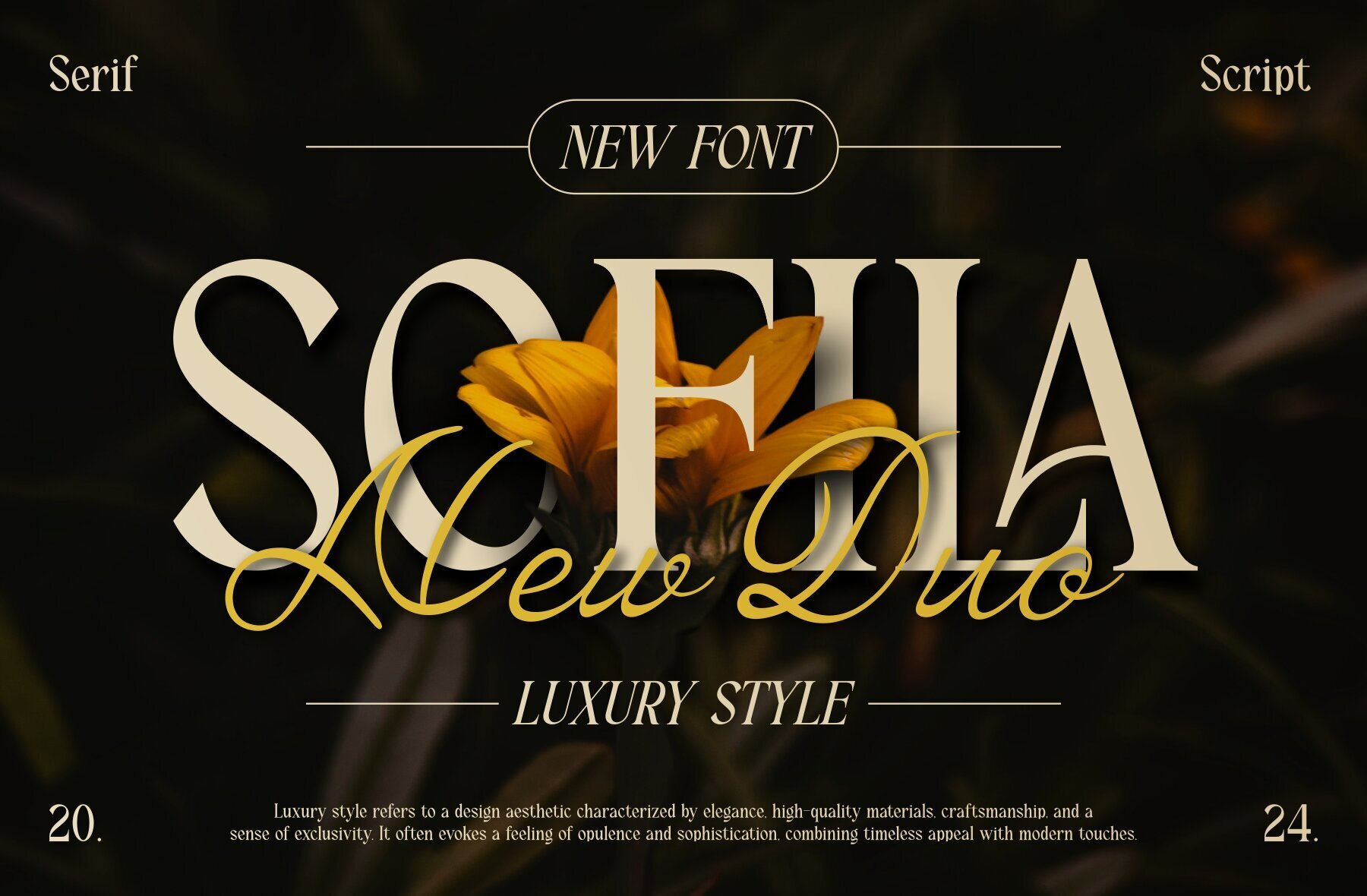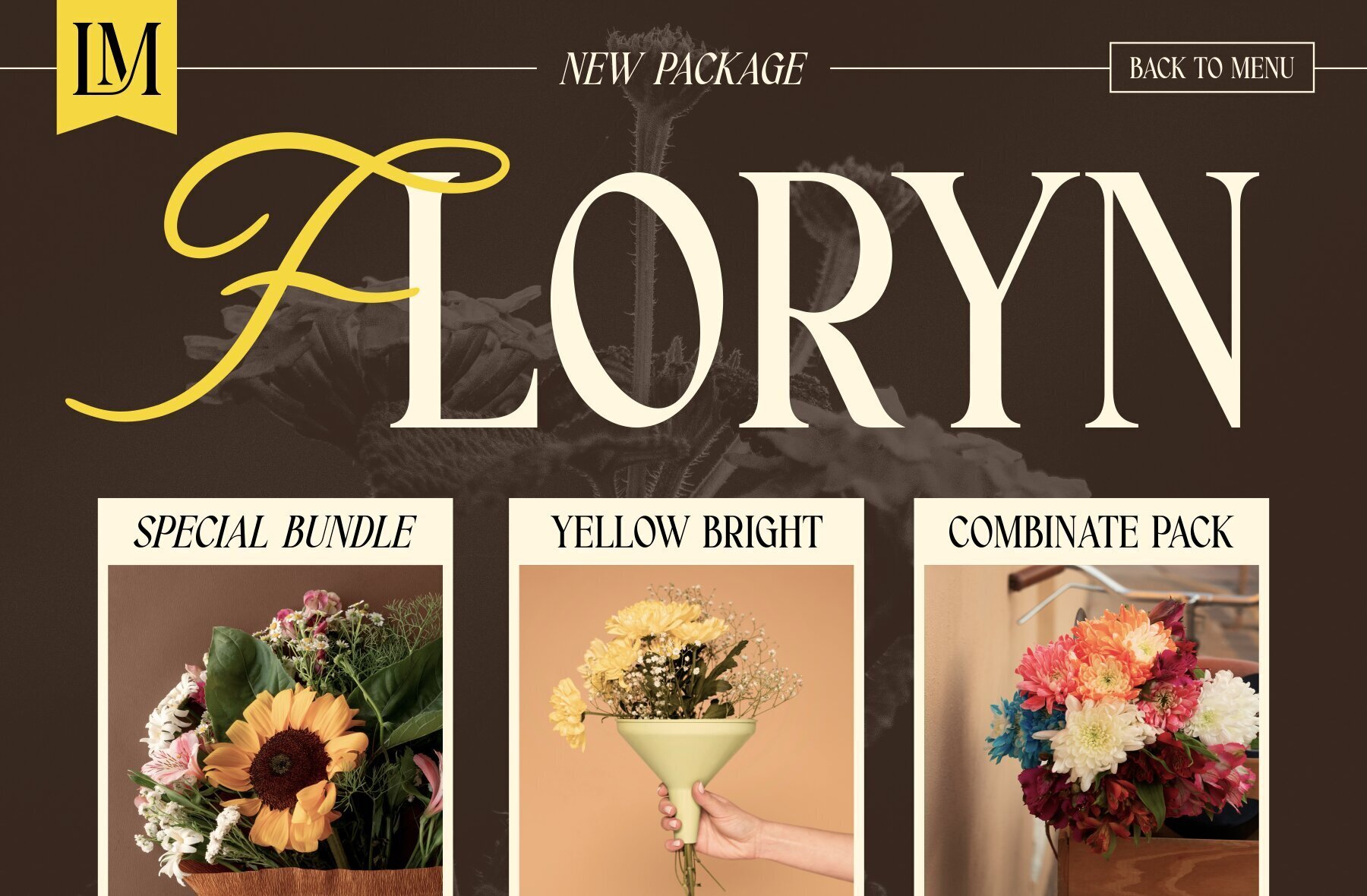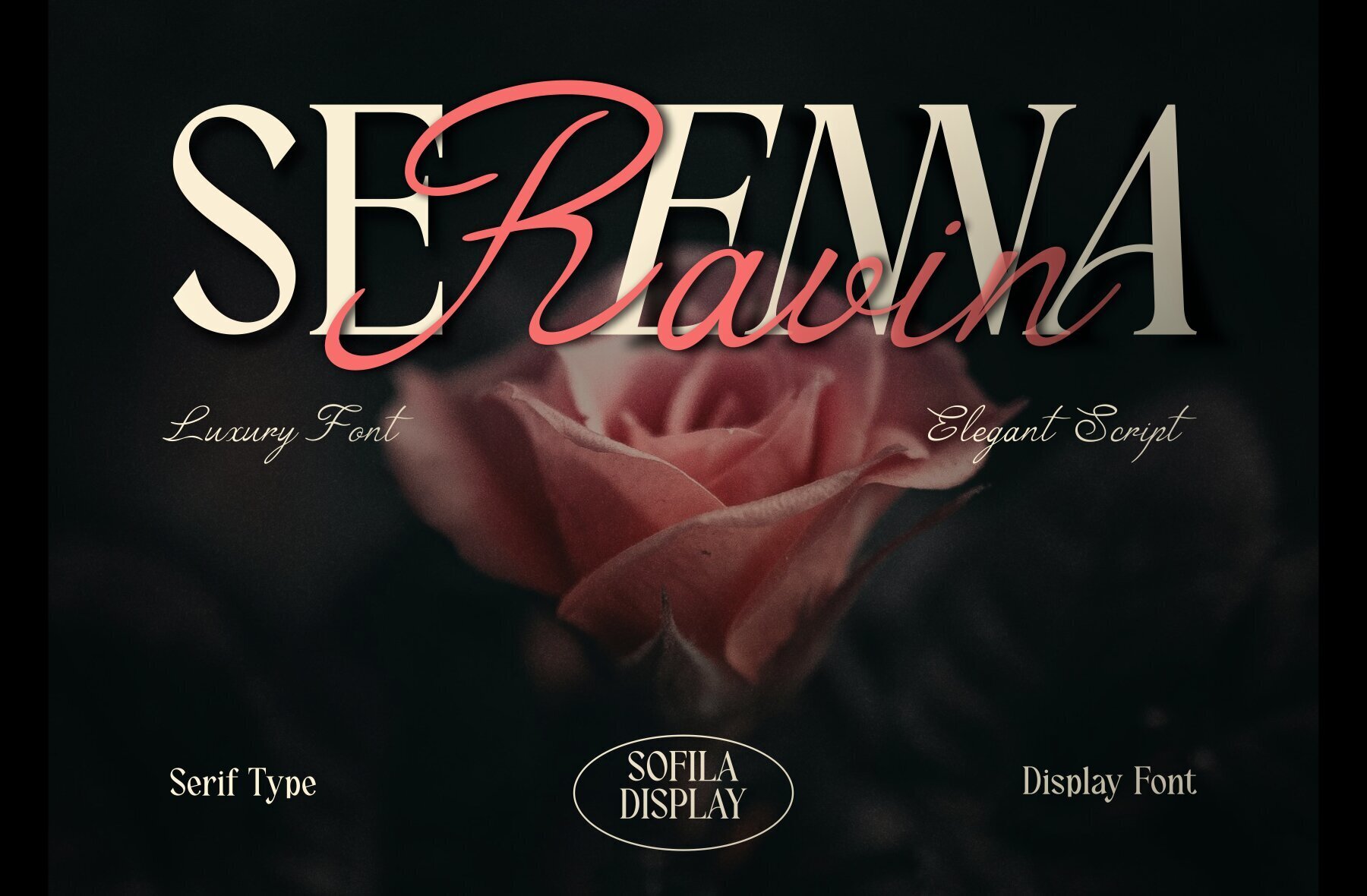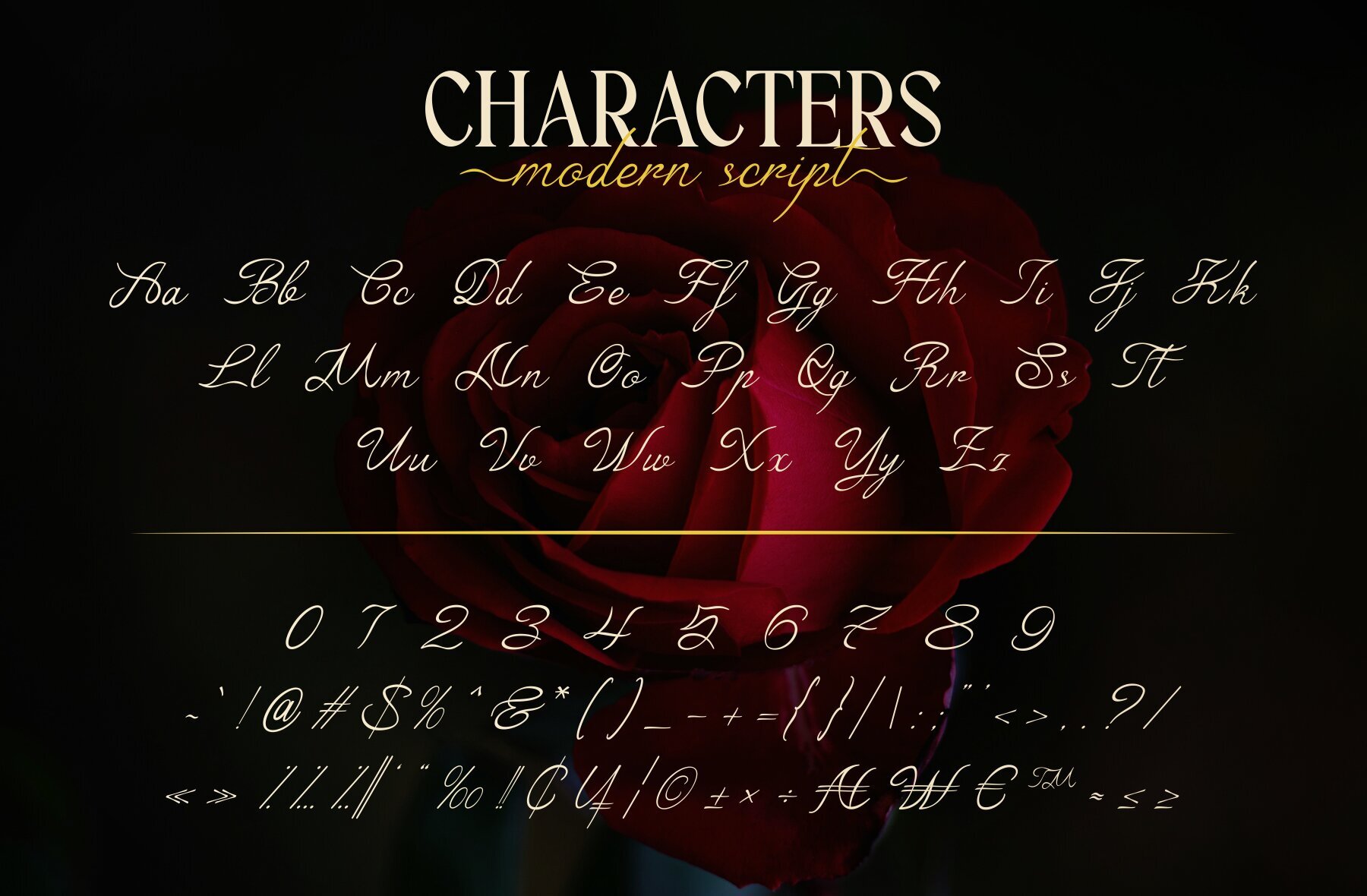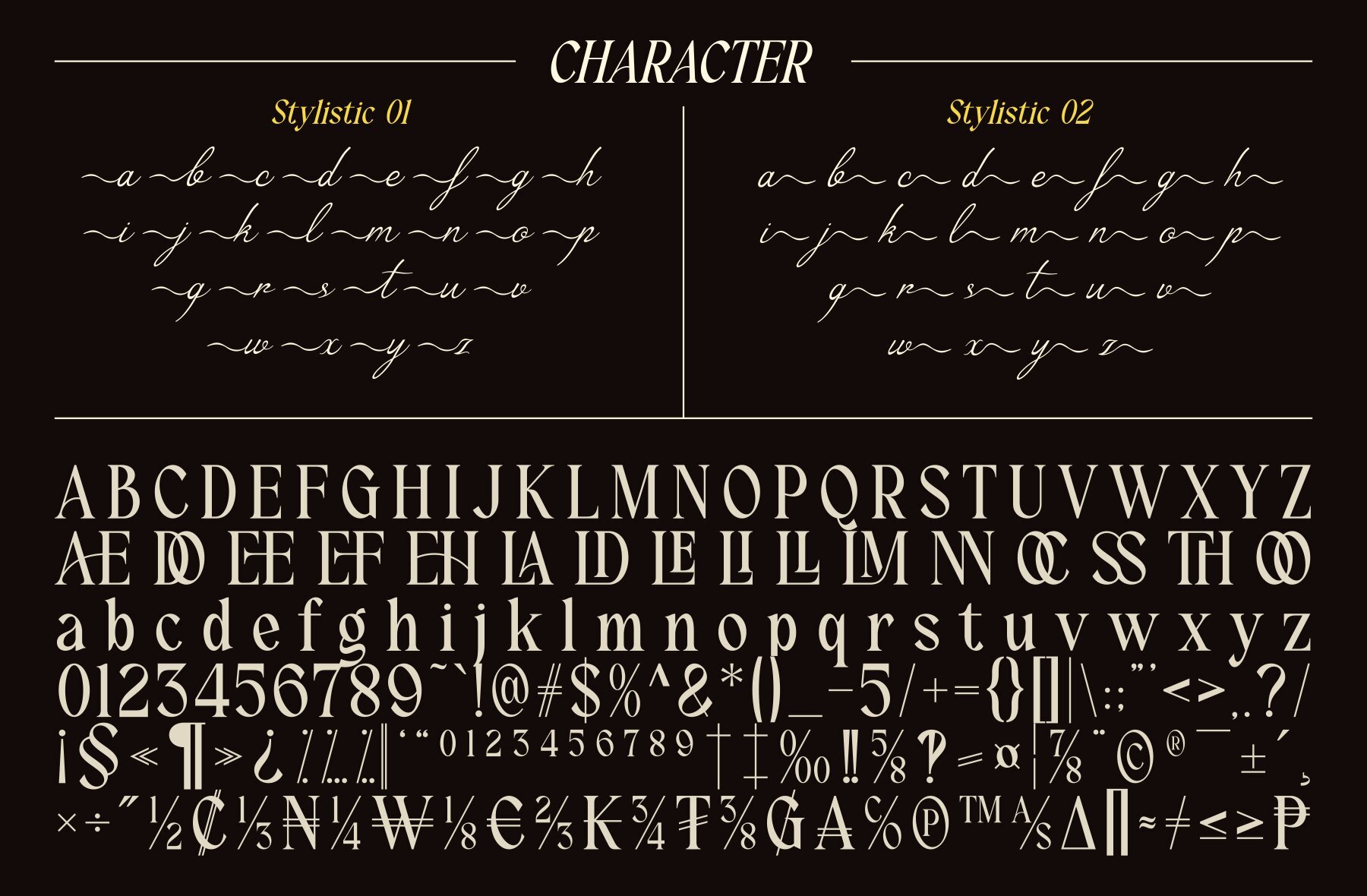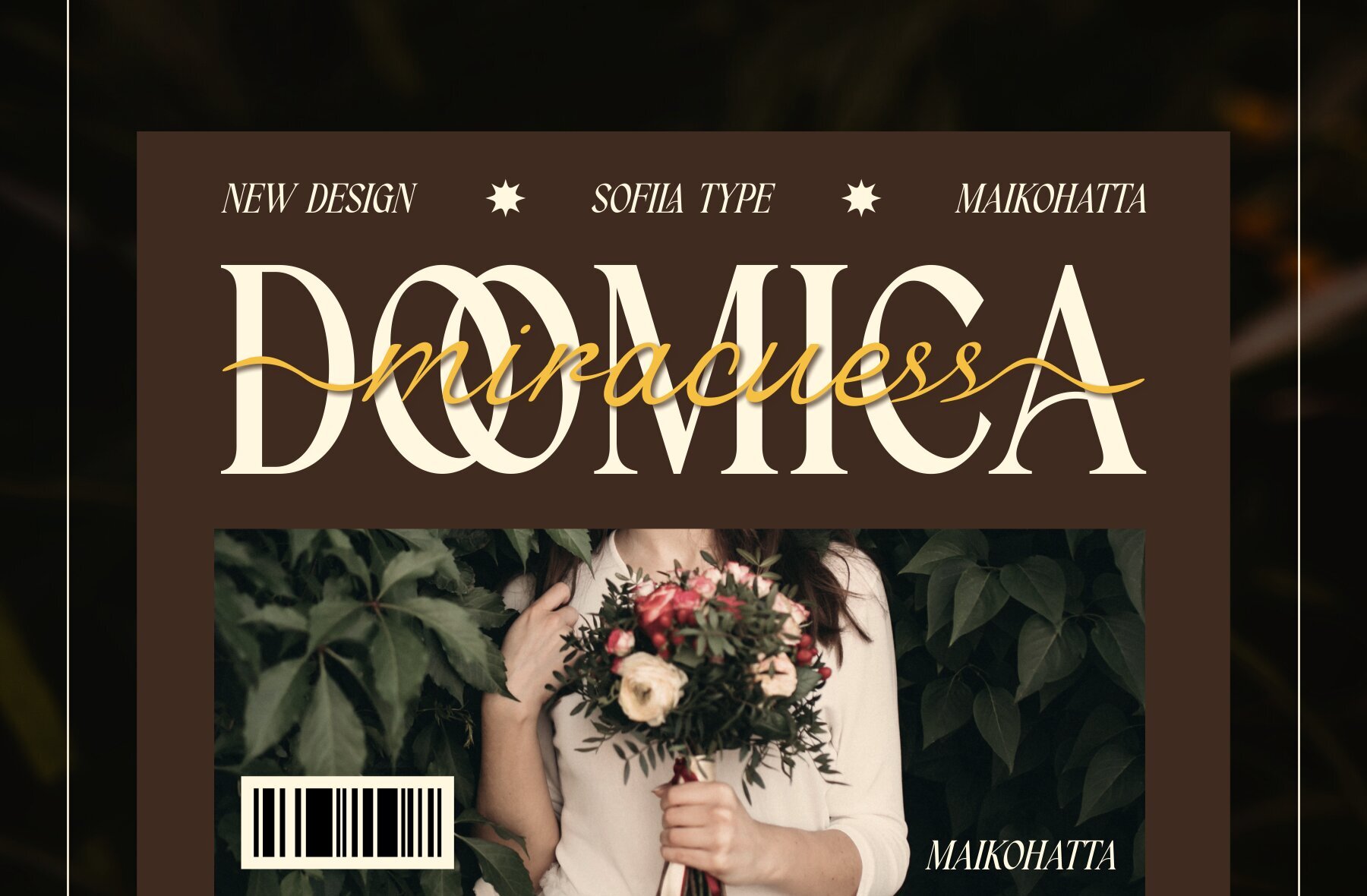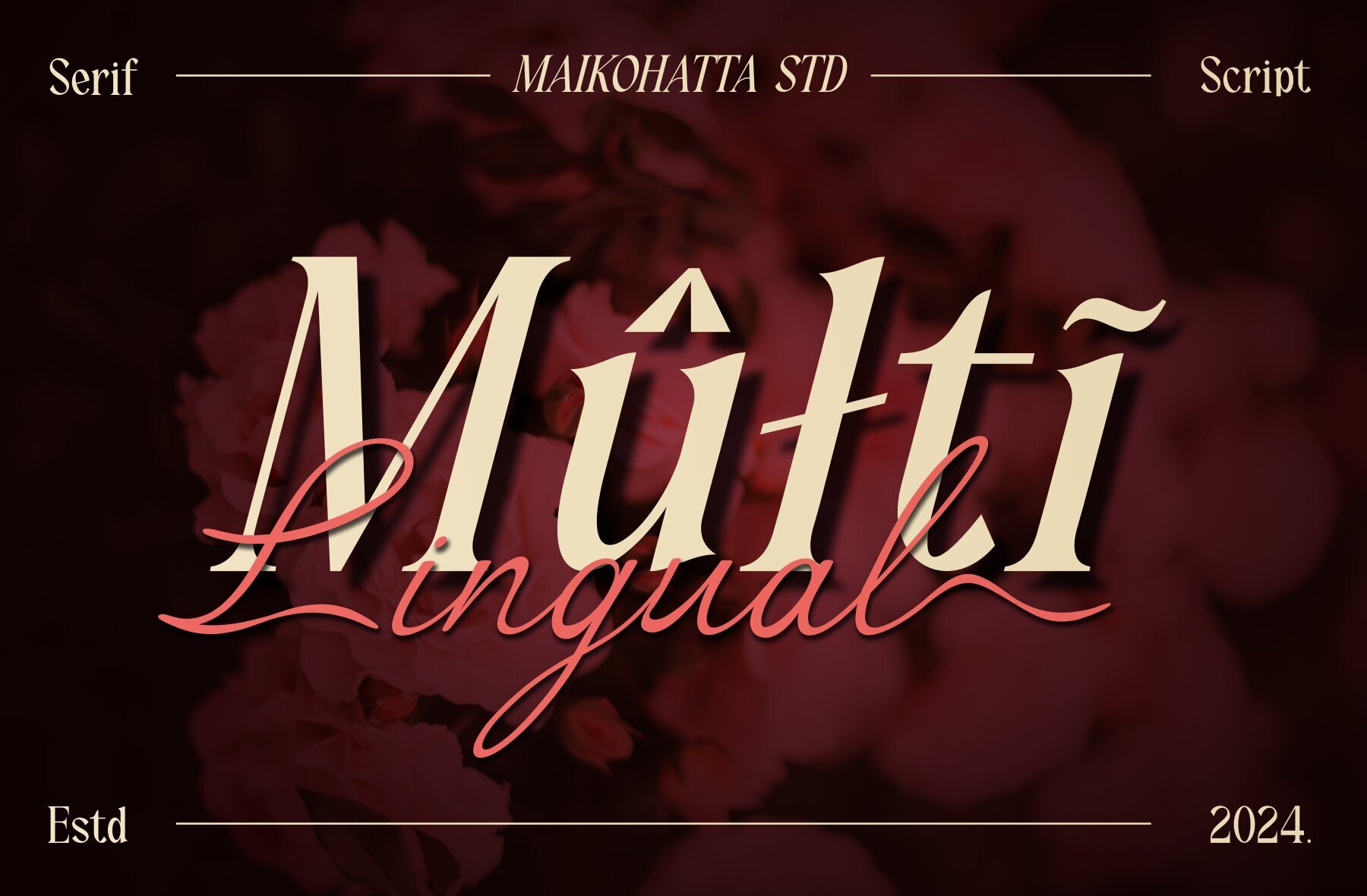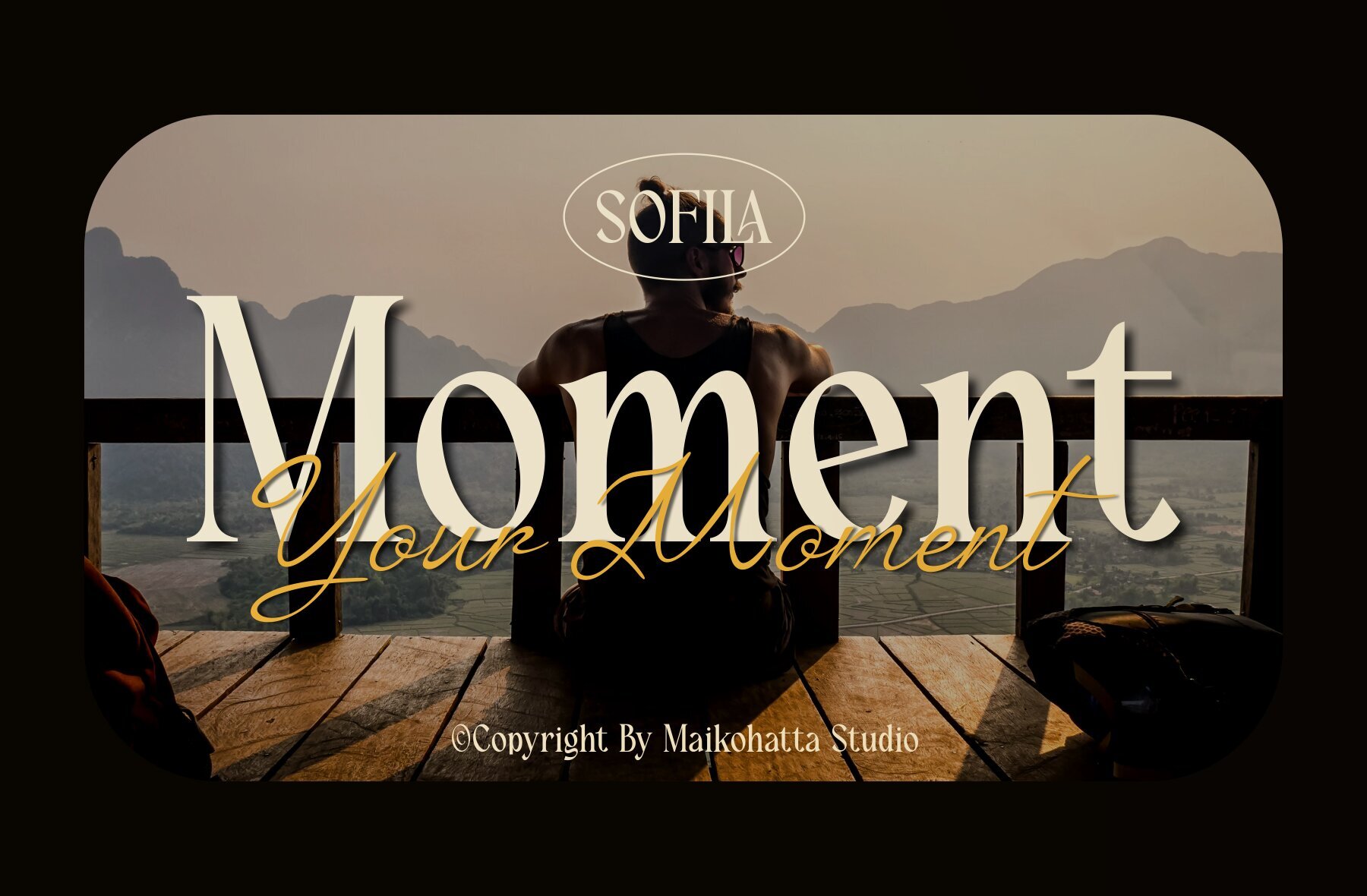
Sofila Font
Sofila is a refined serif typeface, meticulously crafted to convey luxury, elegance, and firmness. This font is characterized by its balanced combination of thin and thick lines, coupled with graceful curves and clean serifs. Each character is designed with sharp corners and intricate details, enhancing its aesthetic appeal and sophisticated charm. Sofila brings a touch of opulence to any design project, making it an ideal choice for those seeking to impart a sense of refinement and class.
The typeface offers versatility with its range of styles, including regular, italic, and script variations. It features both uppercase and lowercase letters, along with multilingual support, making it suitable for a wide variety of design needs. Sofila's distinct features and stylish presentation ensure it enhances any creative project, from branding to editorial design, with a sense of timeless elegance.